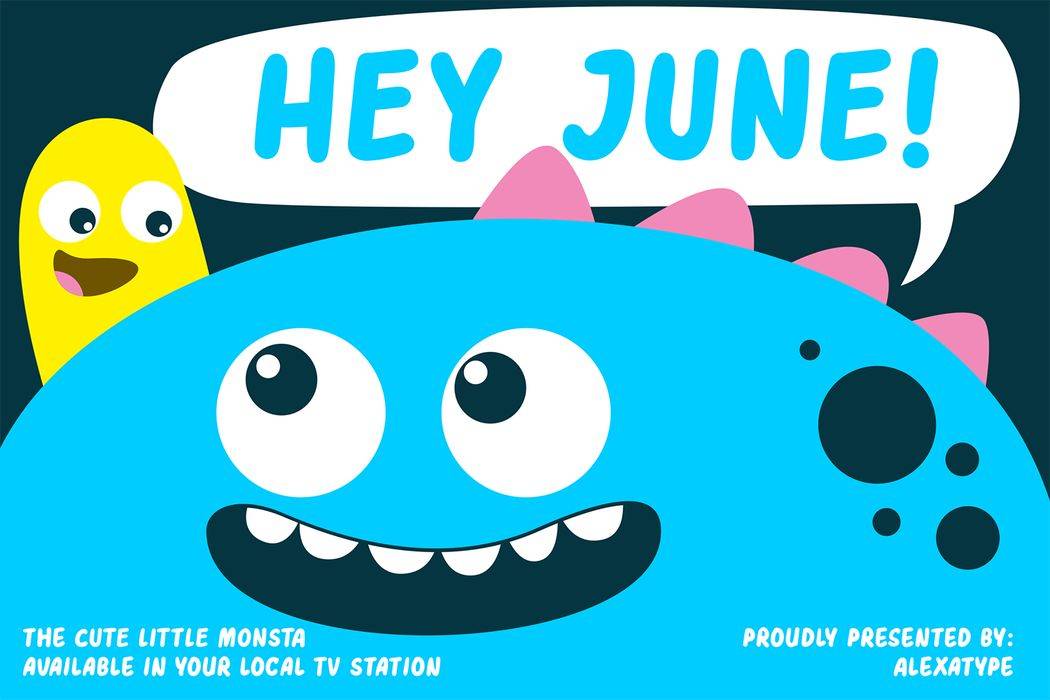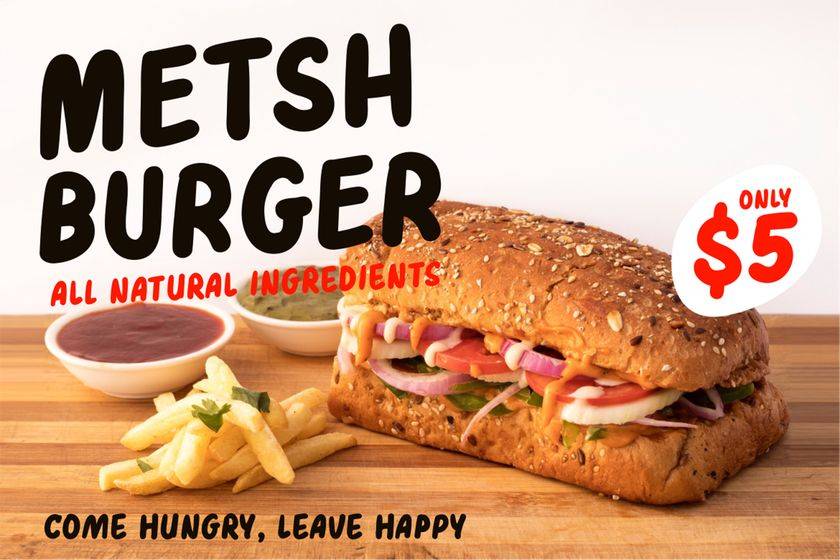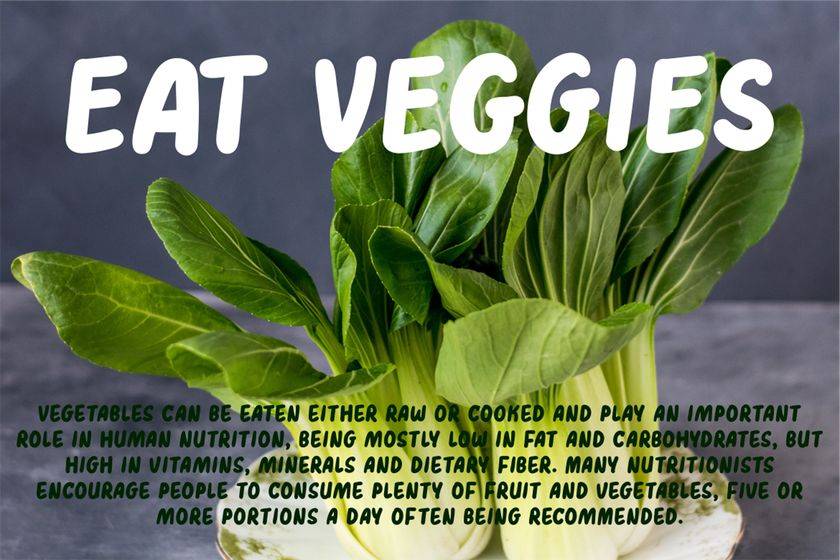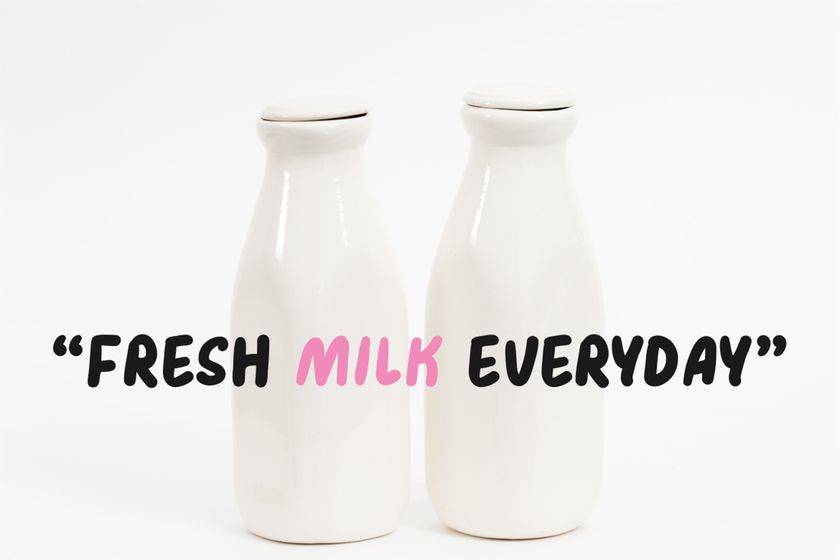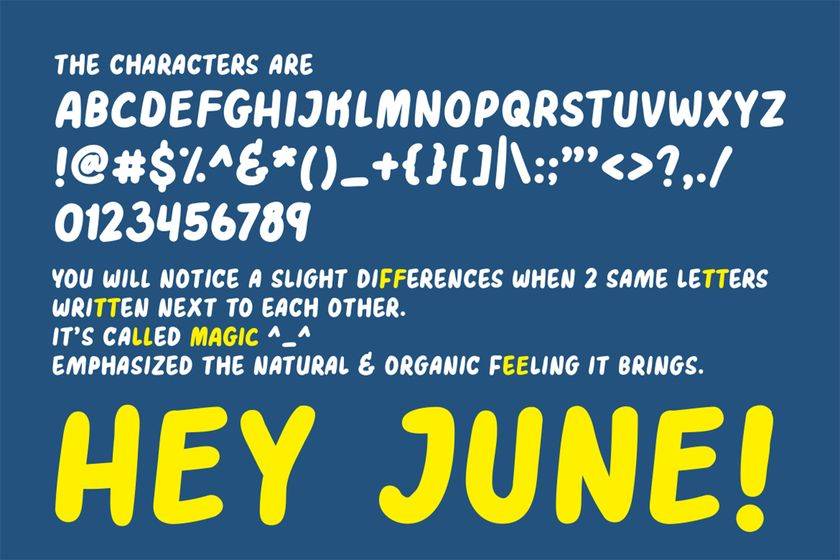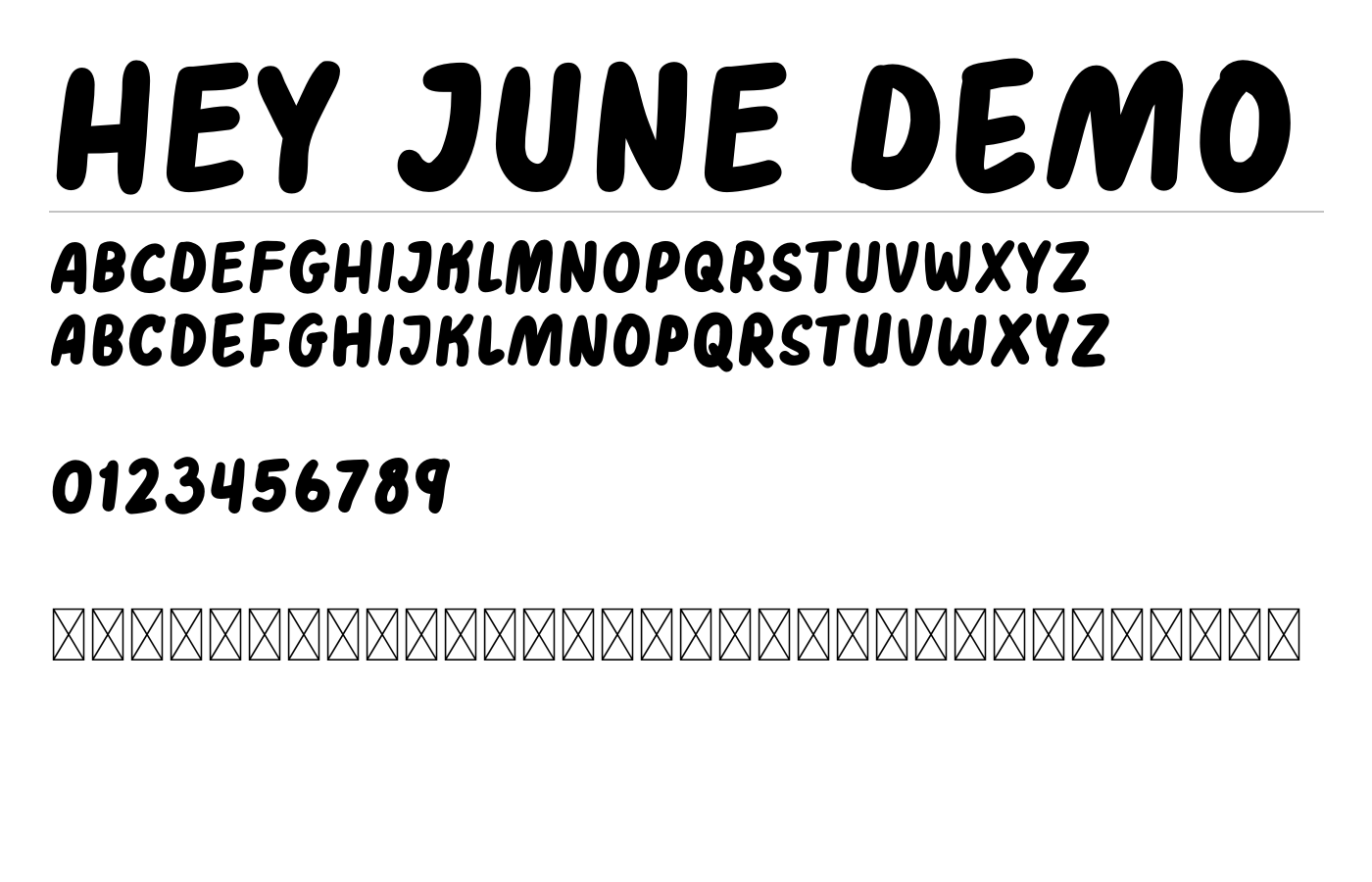
Hey June Font is a bold, playful sans serif with a hand-drawn, casual feel. Its rounded, slightly irregular letterforms and medium x-height create a friendly and approachable vibe, making it perfect for branding, posters, and informal editorial use where a fun, energetic tone is desired. This font works well for projects needing personality and charm without sacrificing readability.
Hey June Font
About Hey June Font